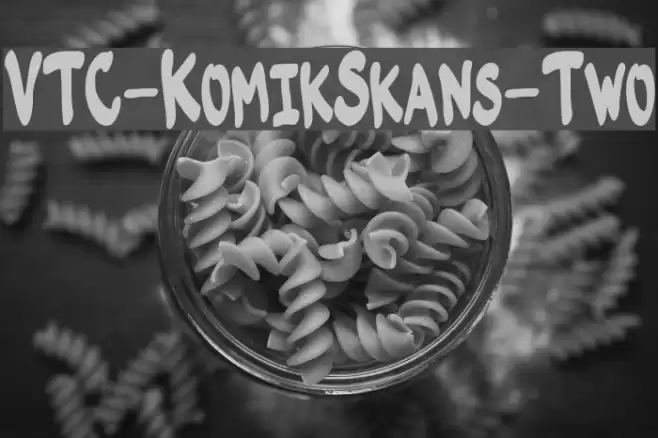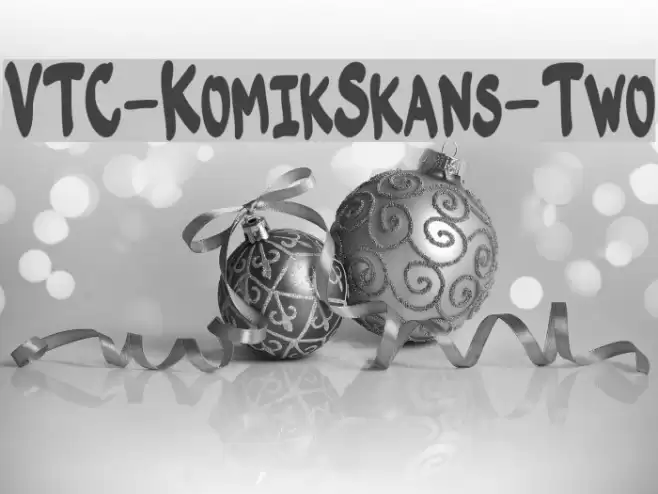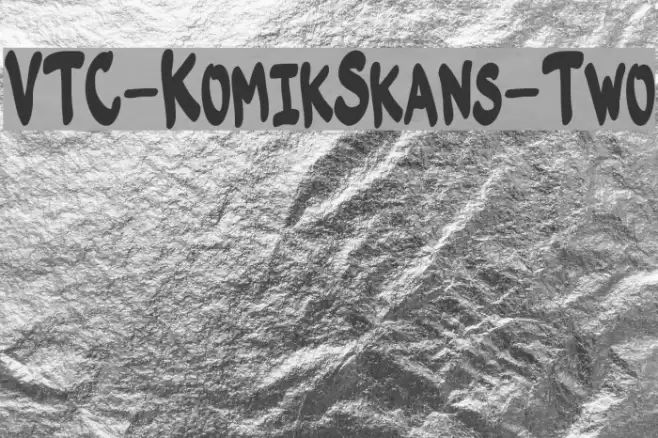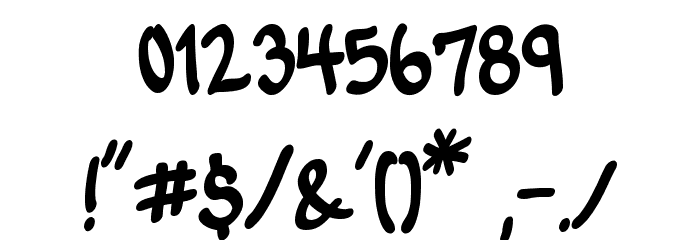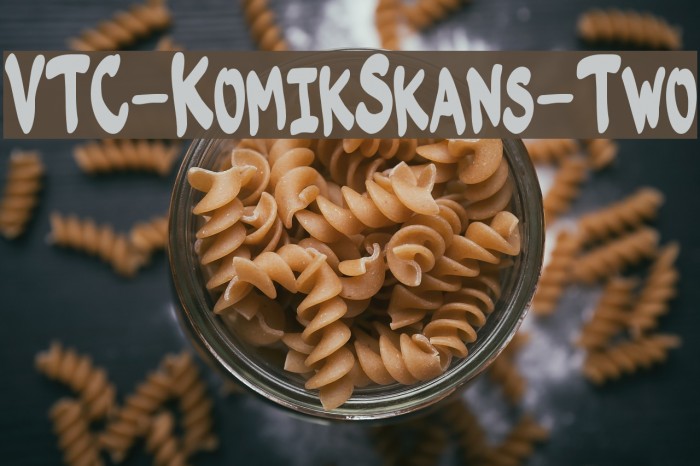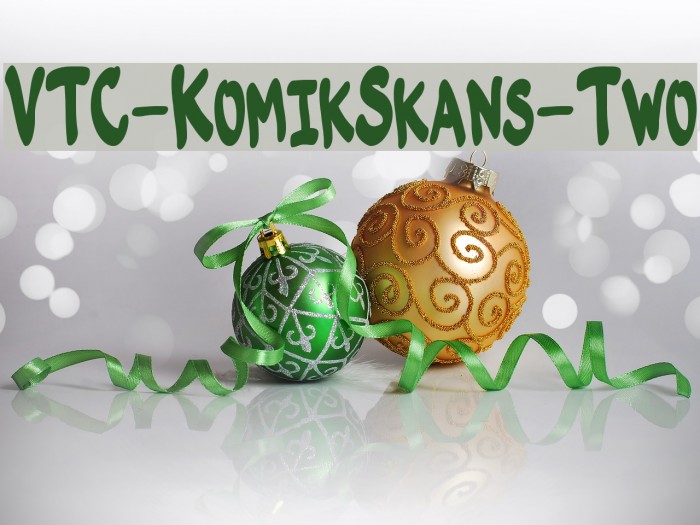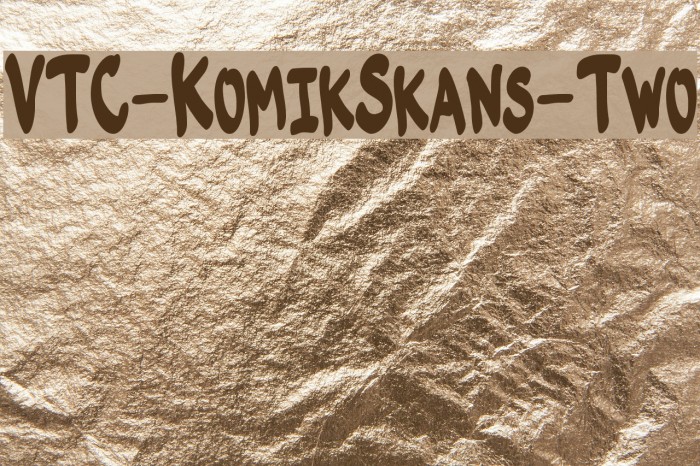
VTC-KomikSkans-Two Font
VTC-KomikSkans-Two Description
This playful and bold font features a handwritten style with a casual and informal appearance. The letters are slightly irregular, giving it a dynamic and lively feel. The strokes are thick and rounded, contributing to its friendly and approachable look. The font maintains a consistent weight throughout, with a slight variation in stroke width that adds to its charm. It is well-suited for projects that require a fun and engaging aesthetic, such as children's books, comic strips, or playful branding. The characters are closely spaced, enhancing the energetic vibe of the text.
A bold, playful handwritten font with a casual and dynamic style from Uncategorized fonts.
- Proposed Projects: Ideal for children's books, comic strips, playful branding, and informal invitations.
- Character Spacing: Tight
- Overall Style: Playful
- Use Case: Headlines, Logos, Informal Text